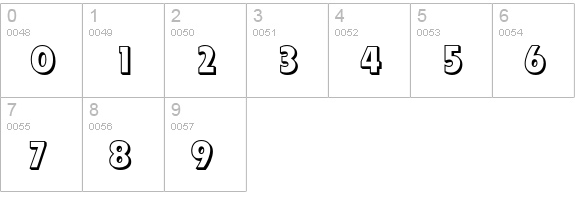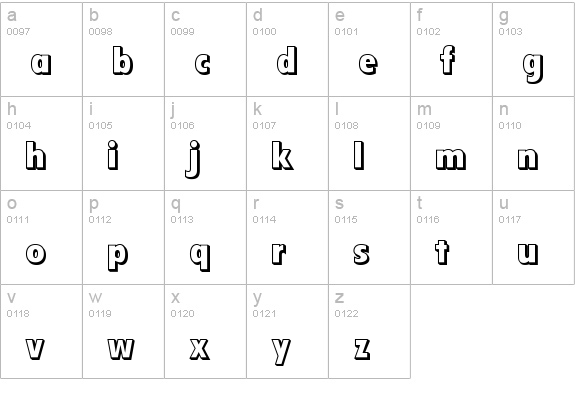
OPTIVanDyke-Outline Font Details
OPTIVanDyke-Outline font is a modern and stylish typeface that exudes elegance and sophistication. With its clean lines and distinct outline design, this font is perfect for adding a touch of refinement to your projects. Whether you're working on posters, invitations, or branding materials, OPTIVanDyke-Outline font is sure to make a statement. The best part? OPTIVanDyke-Outline font is completely free to download at FontsMarket.com. This means you can easily access this beautiful font without any cost, making it a fantastic choice for designers and creatives looking to elevate their work without breaking the bank. Don't miss out on the opportunity to enhance your designs with the exquisite OPTIVanDyke-Outline font - download it for free today at FontsMarket.com!